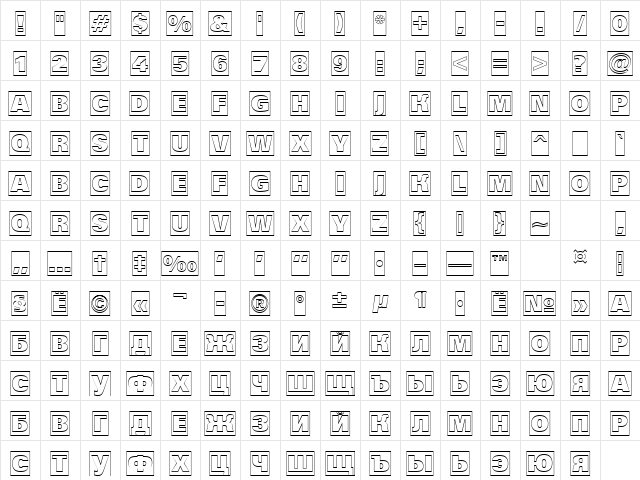
Complete a_GroticTitulCmOtlHv Normal glyph index. Displaying only characters natively supported by a_GroticTitulCmOtlHv Normal font.
a_GroticTitulCmOtlHv is a composed and adaptable typeface that performs quietly and consistently across a wide range of design contexts.